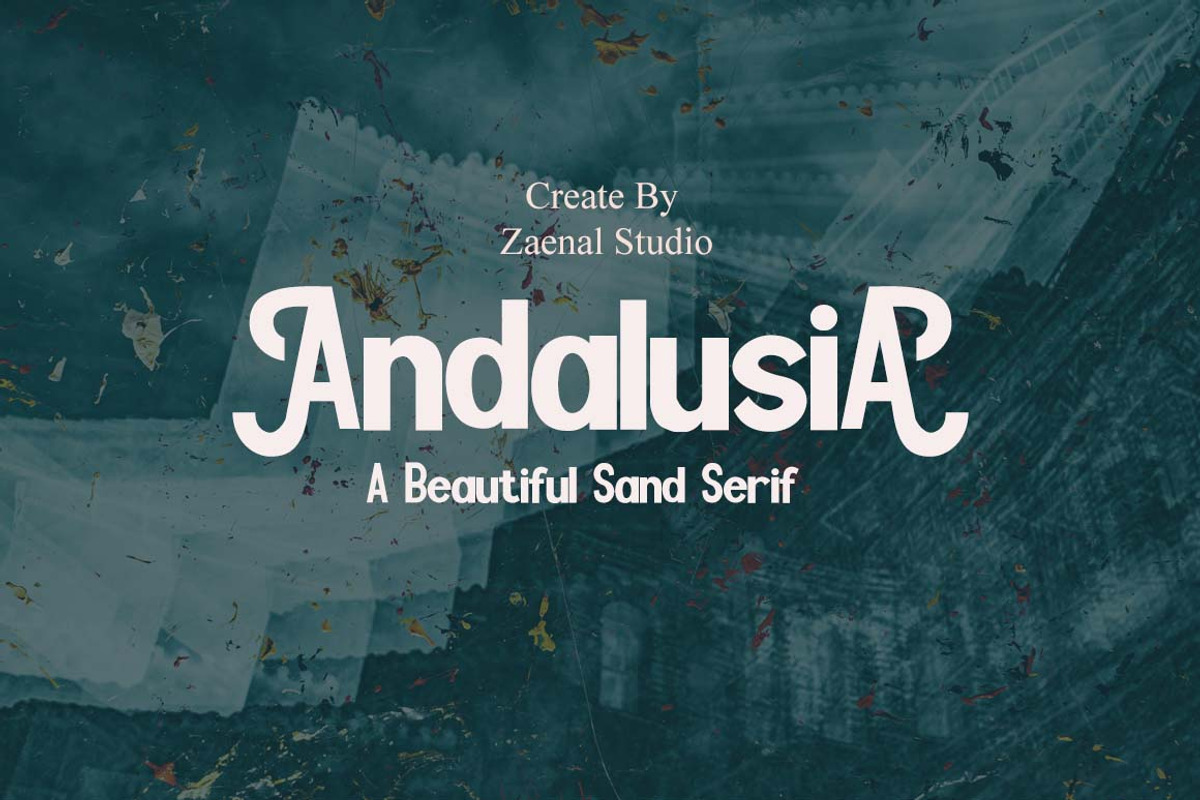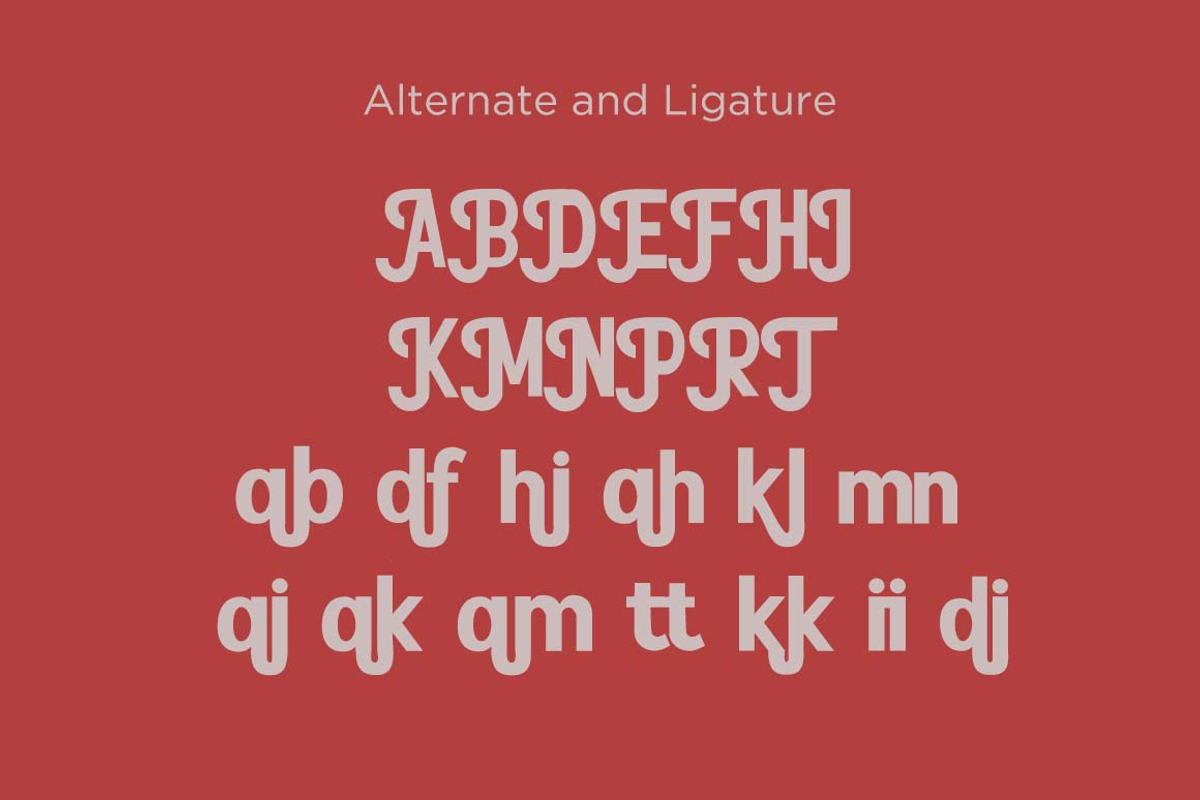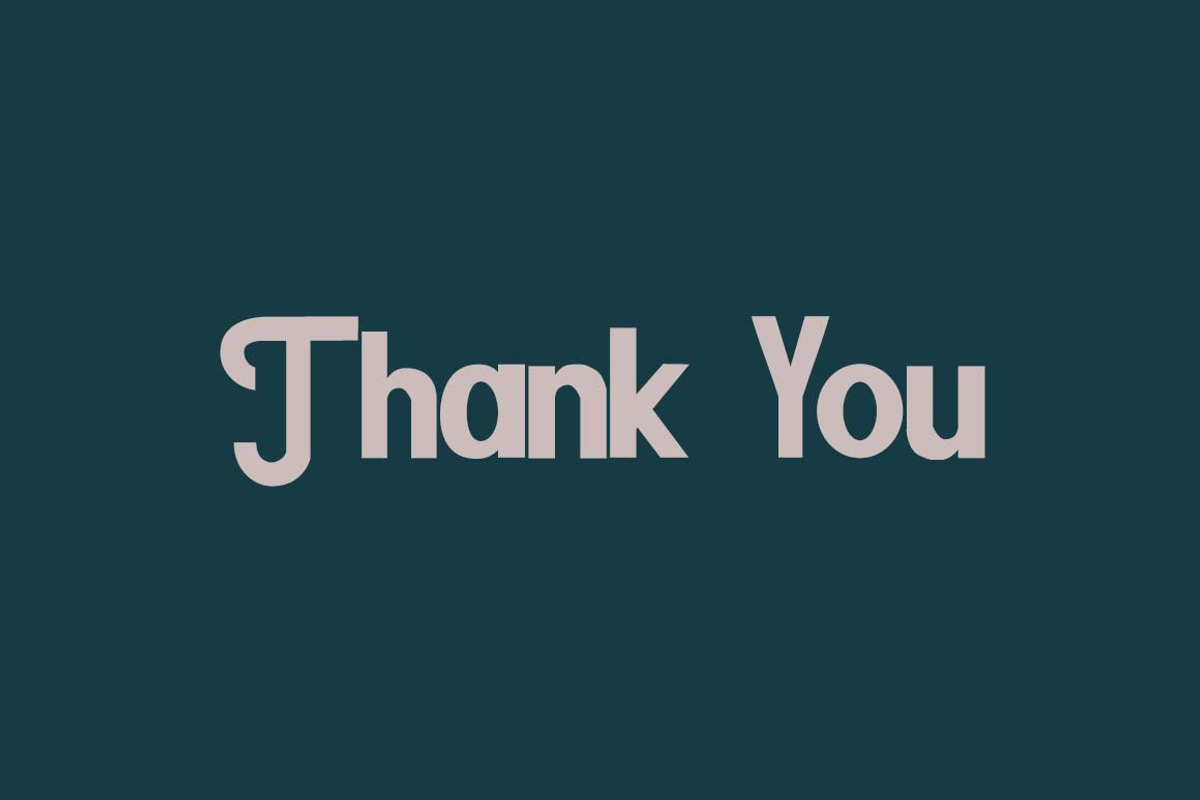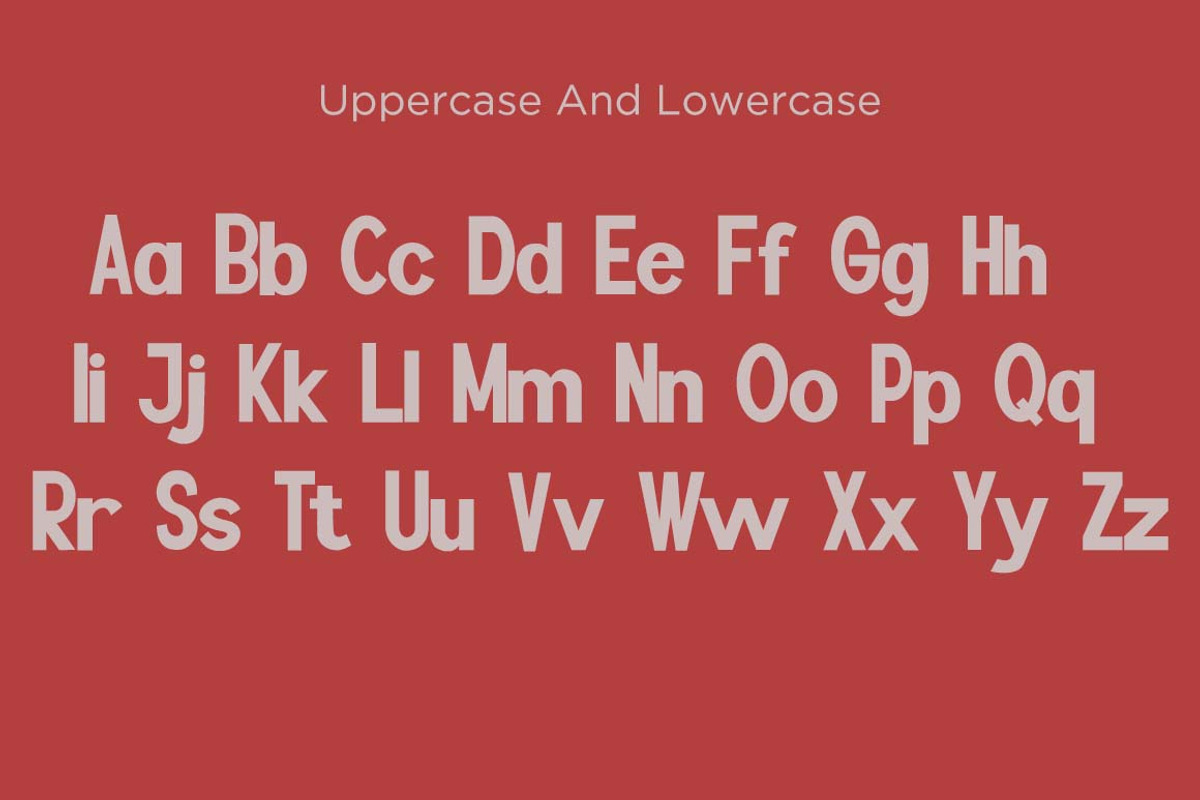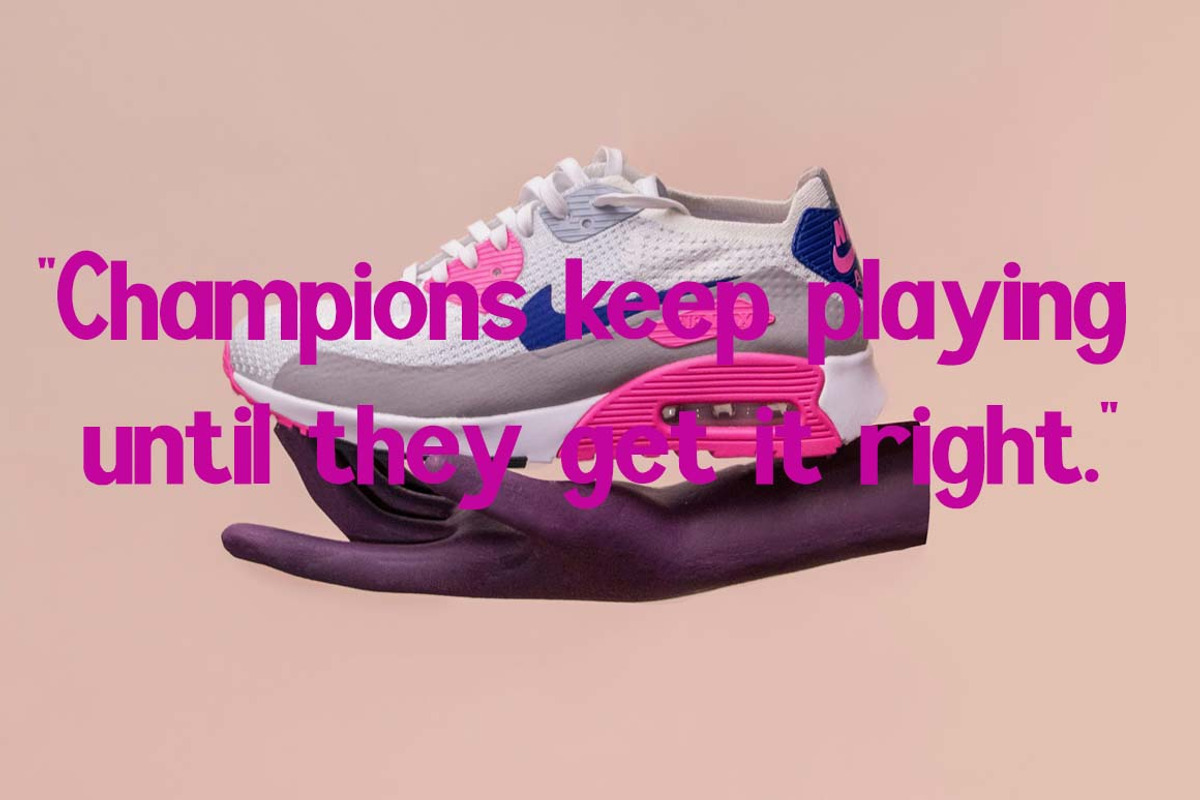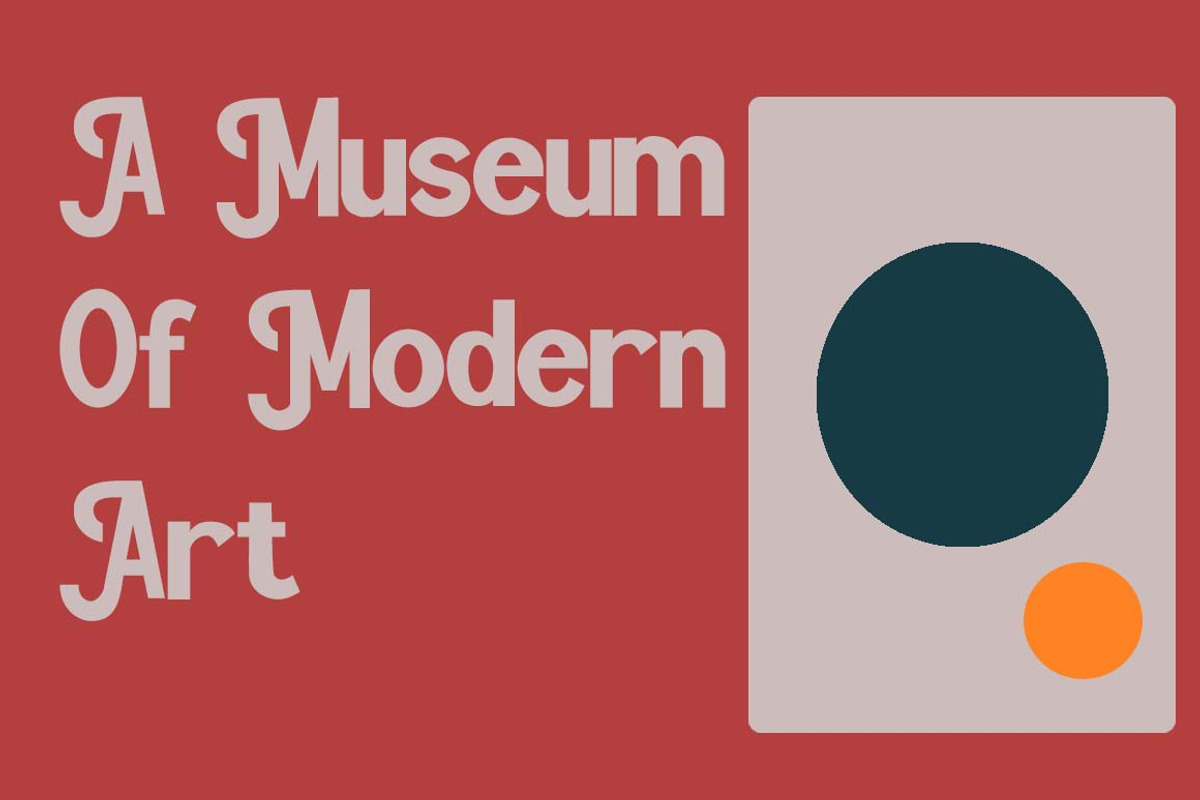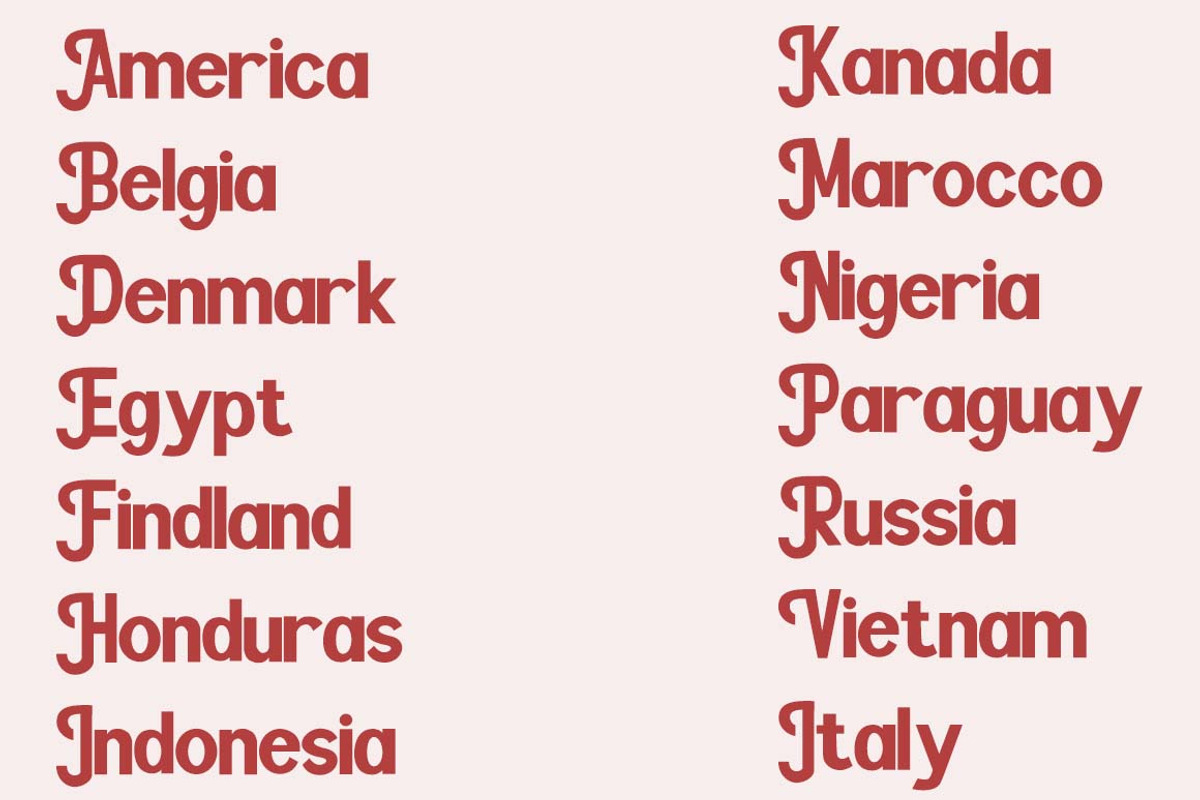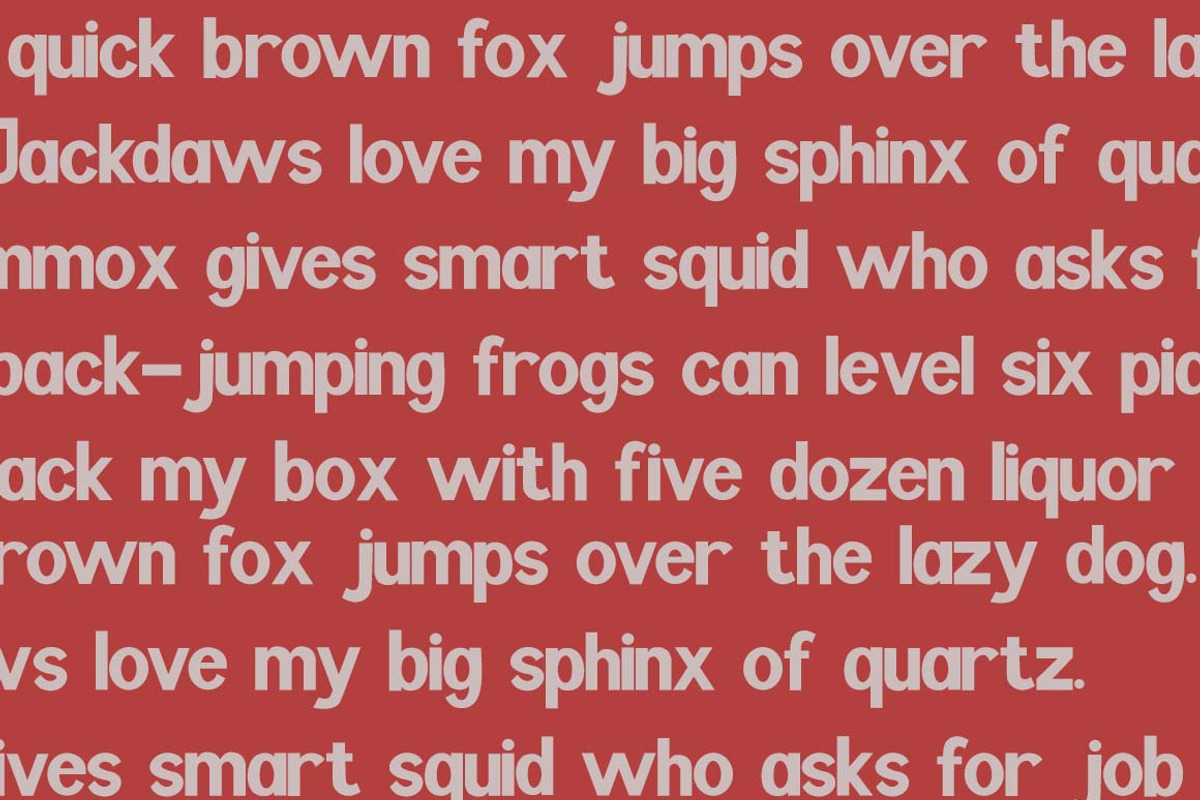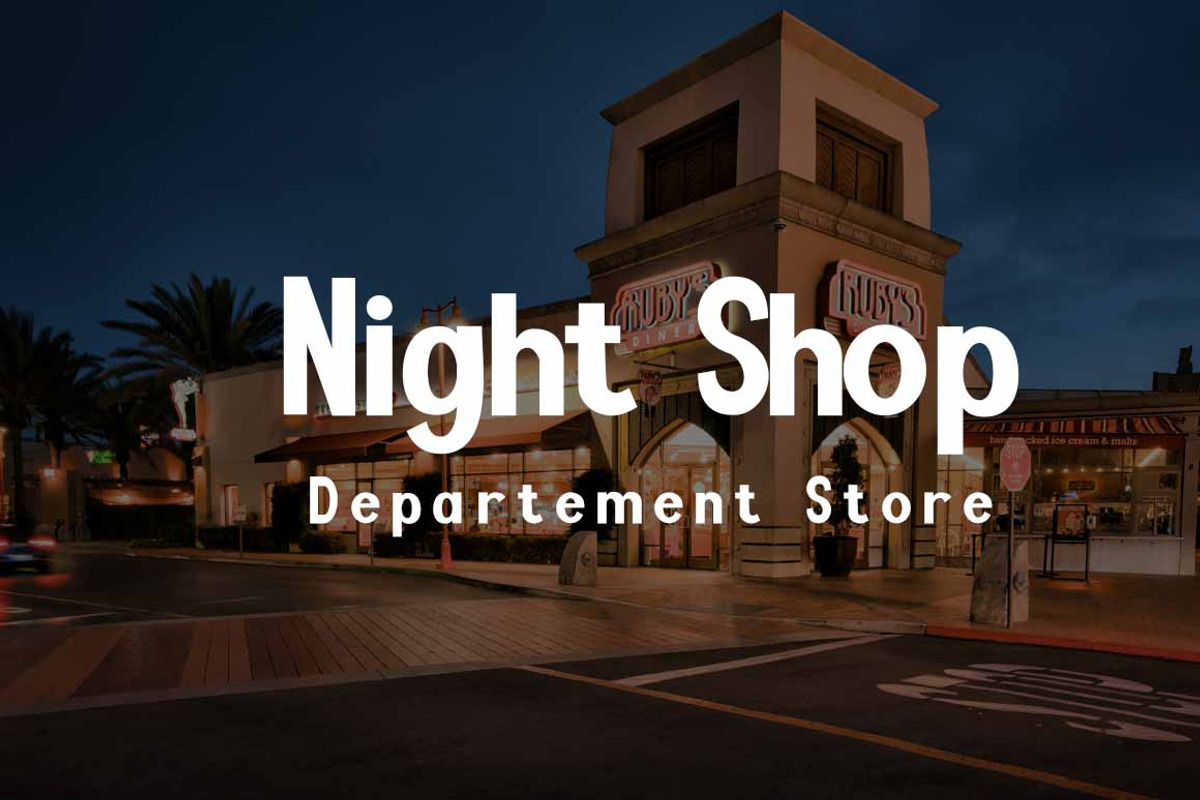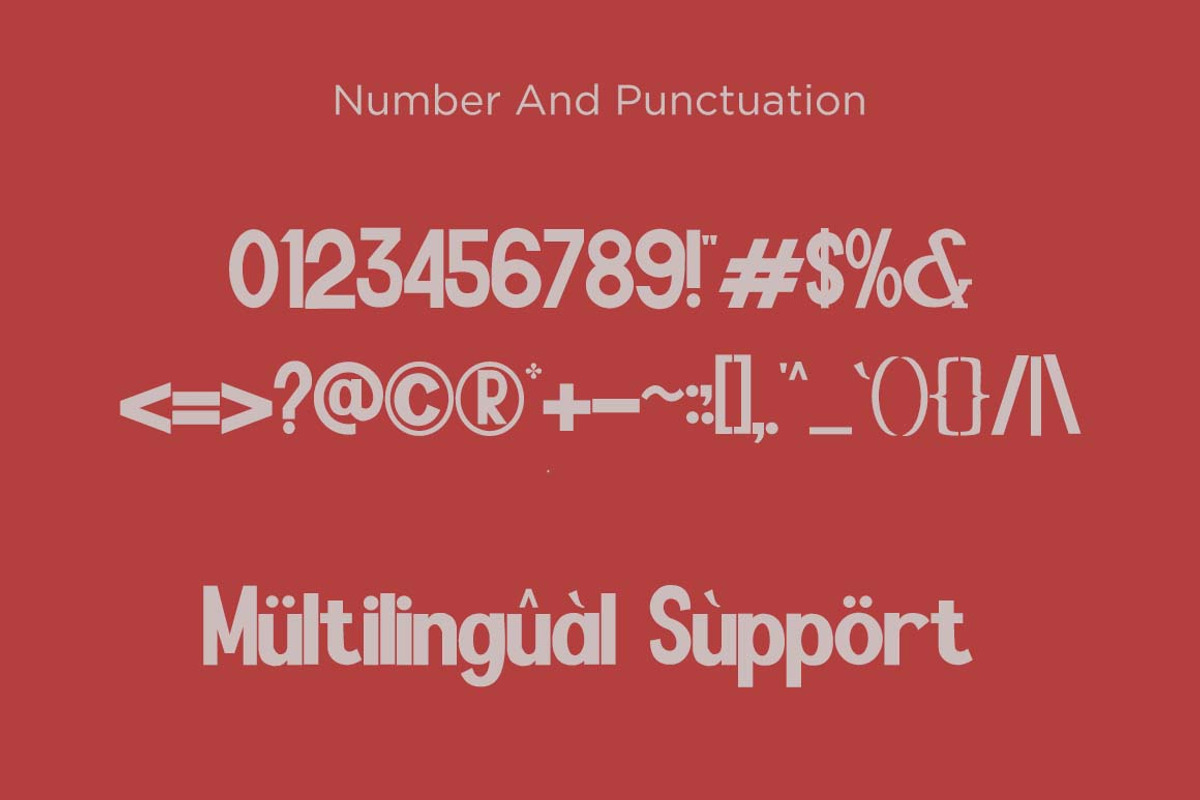
Andalusia
Andalusia is a Sand Serif Font, unique font and very elegant font for brand and logo designs. Based on our experience as graphic designers working in many companies, we are often asked to design a logo with a unique style but with an elegant shape. So, we tried to brainstorm and come up with this font to get ideas out. It is perfect for ,Invitation, Bussiness Card, Vintage Logo, BRANDING and LOGO DESIGN. You will get a classy, elegant, and of course unique logo with this font. To make it look even more unique we created some ligatures for you, so you can create any amazing design you want. Andalusia also includes the full set: -uppercase and lowercase -multilingual symbol -number -punctuation -Ligatures -Stylish Alternate